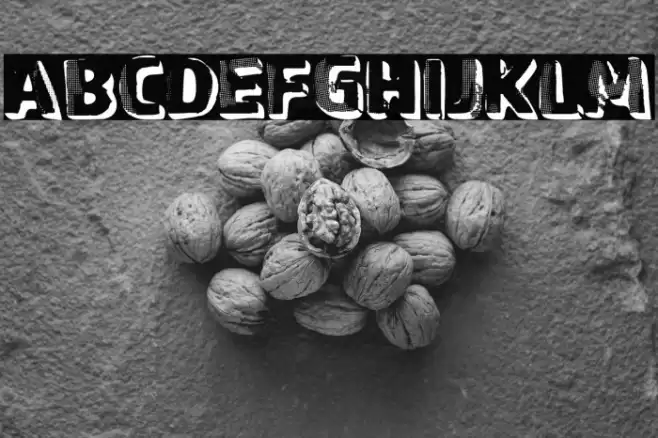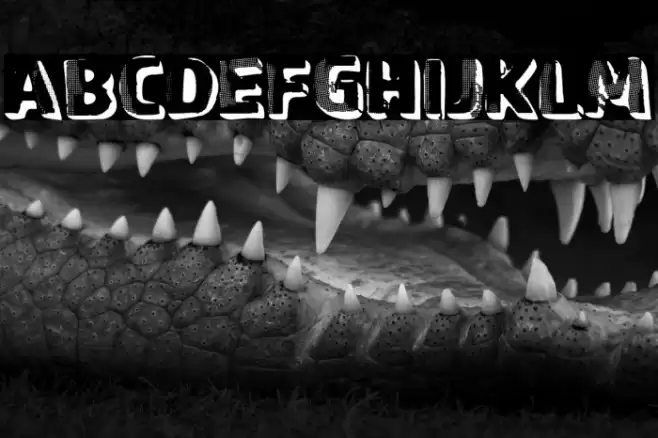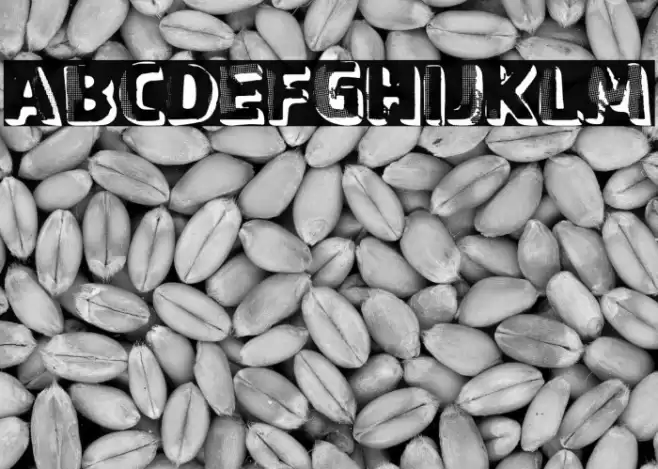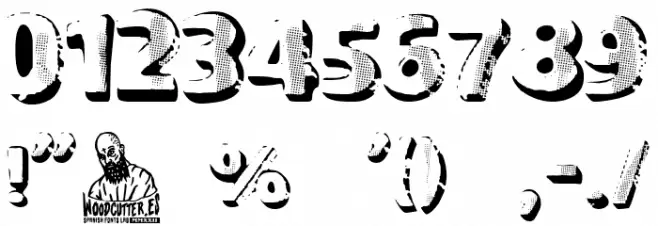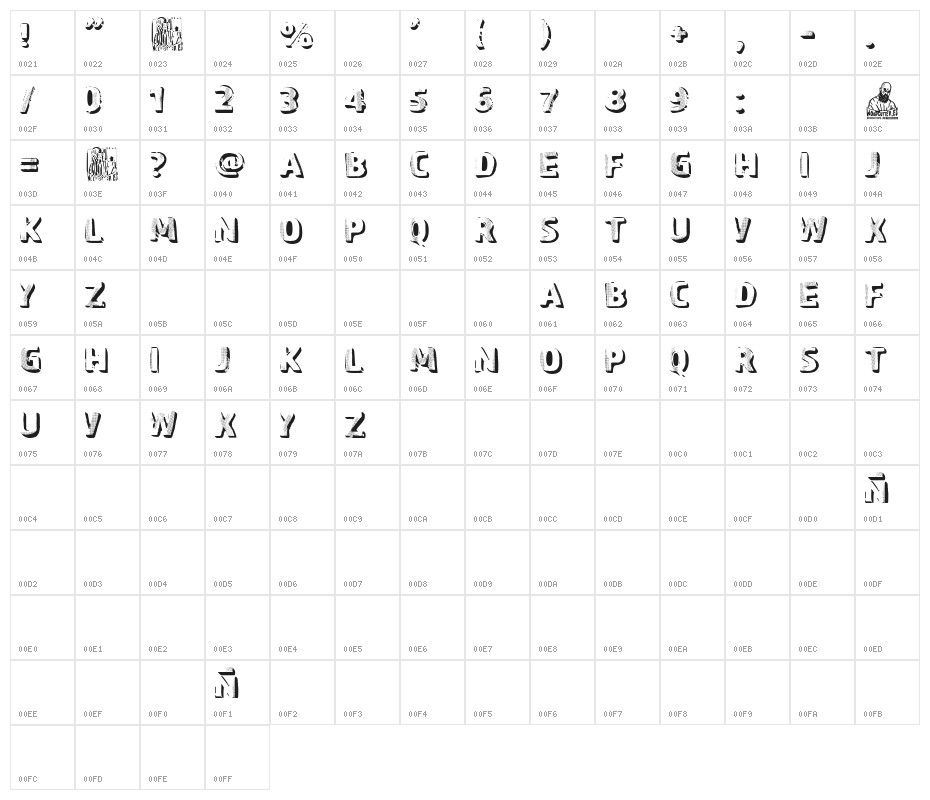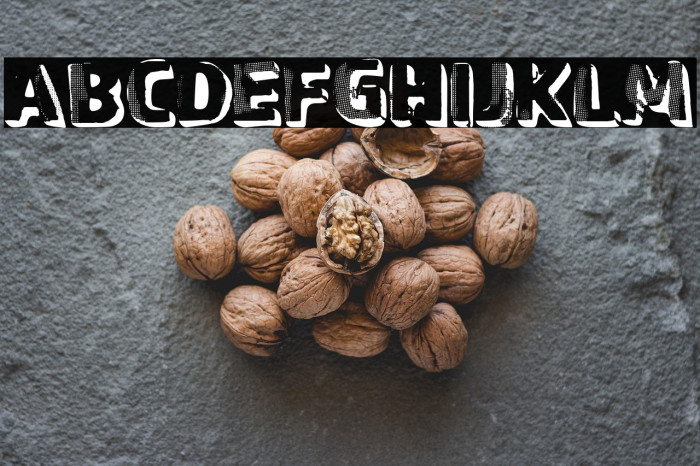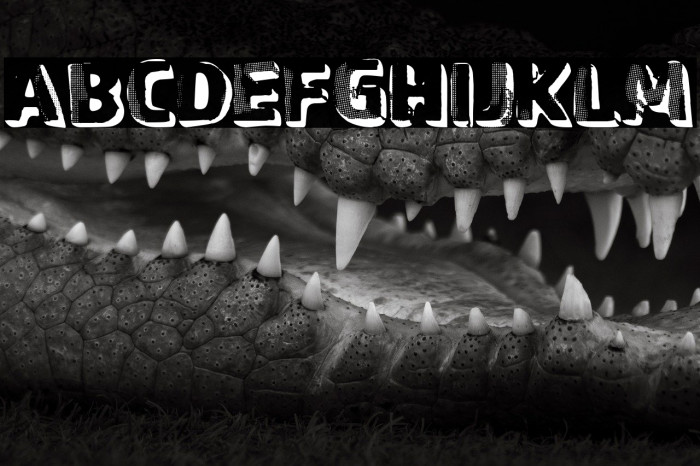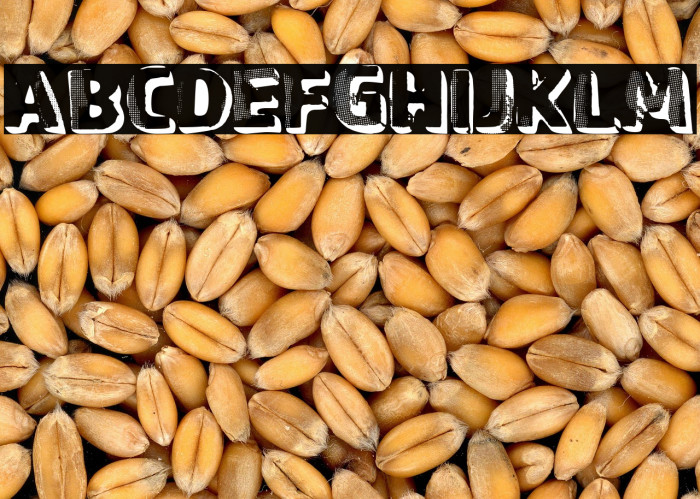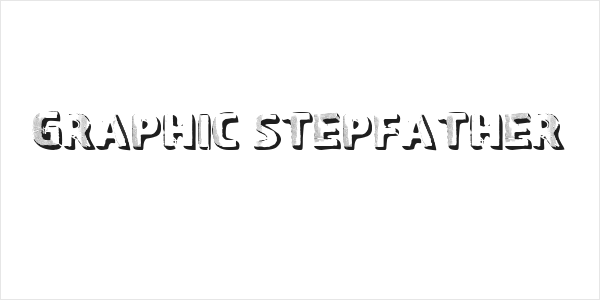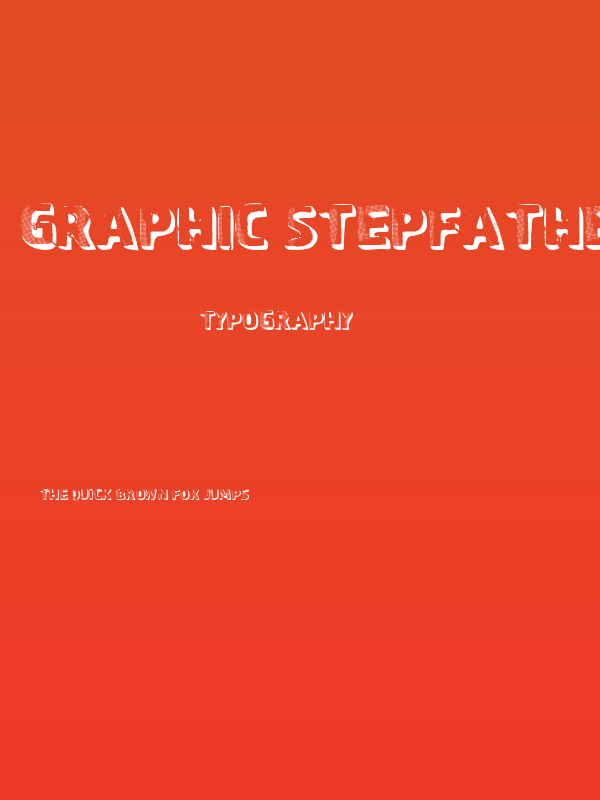
Graphic Stepfather Font
Graphic Stepfather Description
This font features a bold, three-dimensional appearance with a distressed texture that gives it a rugged, vintage feel. The letters are capitalized and have a shadow effect that adds depth, making them stand out prominently. The texture within the letters resembles a halftone pattern, contributing to its retro aesthetic. The numbers and special characters follow the same style, ensuring consistency across all glyphs. This font is ideal for projects that require a strong, eye-catching display with a touch of nostalgia.
A bold, distressed 3D font with a vintage halftone texture from Uncategorized fonts.
- Font: Graphic Stepfather
- Proposed Projects: Ideal for vintage posters, retro-themed branding, album covers, and eye-catching headlines.
- Overall Style: Vintage